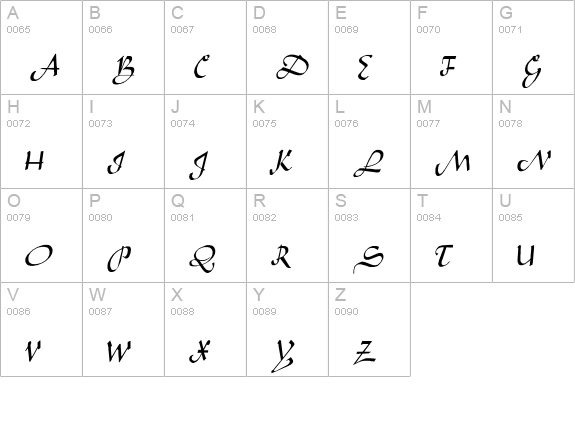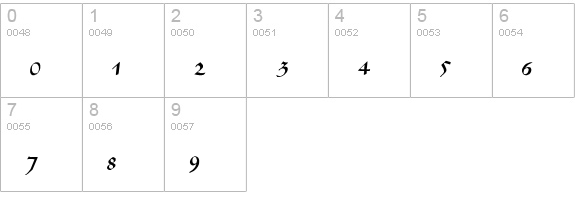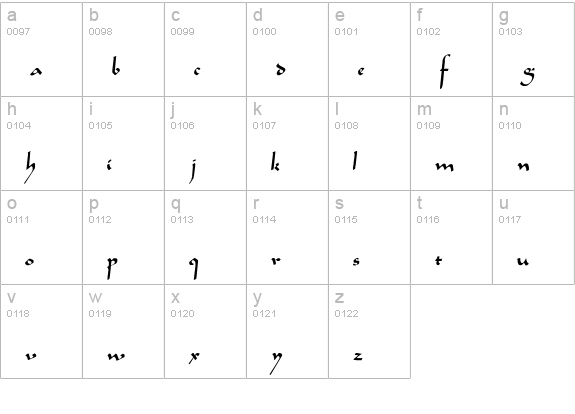
Sahara-Normal Font Details
Sahara-Normal is the standard, neutral variant in the Sahara typeface family \xE2\x80\x94 well suited to general body text, paragraphs, and standard typographic work.
Sahara-Normal is a stylish and modern font that exudes elegance and sophistication. Its clean lines and sleek curves make it the perfect choice for any design project that requires a touch of class. The letters are beautifully crafted, with just the right balance of thickness and thinness, creating a harmonious visual appeal. This font is not only visually stunning but also incredibly versatile. It can be used for a wide range of purposes, from branding and logo design to website headers and social media graphics. Its timeless design ensures that it will remain relevant and captivating for years to come. One of the best things about Sahara-Normal is that it is freely available to download at FontsMarket.com. This means that you can easily access and use this beautiful font without any cost. Whether you are a professional designer or a casual hobbyist, having access to high-quality fonts for free is always a welcome opportunity. With Sahara-Normal, you can take your design projects to new heights, creating visually stunning and impactful designs that capture attention and leave a lasting impression. So why wait? Download Sahara-Normal today and unleash your creativity with this incredible font.